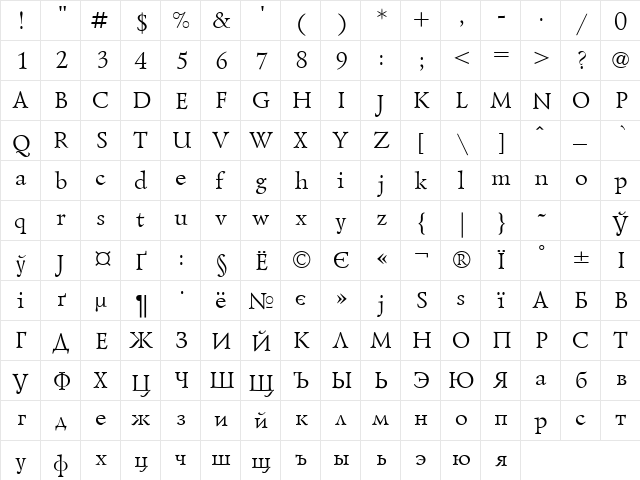
Lazurski Cyrillic
Design Context for Lazurski Typeface
Lazurski takes a measured approach to typography — its balanced proportions and neutral character make it a reliable workhorse for both digital and print work.